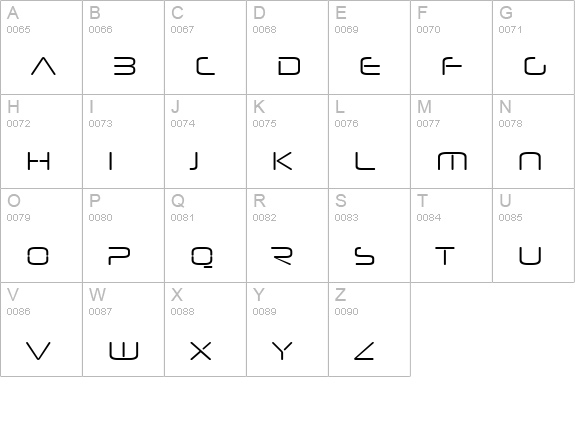
Neuropol Nova Lite Font Details
Neuropol Nova Lite font is a modern and sleek typeface that exudes a futuristic and cutting-edge vibe. With its clean lines and geometric shapes, this font is perfect for projects that require a contemporary and tech-savvy look. Whether you're designing websites, posters, or logos, Neuropol Nova Lite will add a touch of sophistication to your work. The best part is that Neuropol Nova Lite is available for free download at FontsMarket.com. This means you can easily access this stylish font without any cost, making it a valuable addition to your design toolkit. Don't miss out on the opportunity to enhance your projects with the sleek and stylish Neuropol Nova Lite font today!